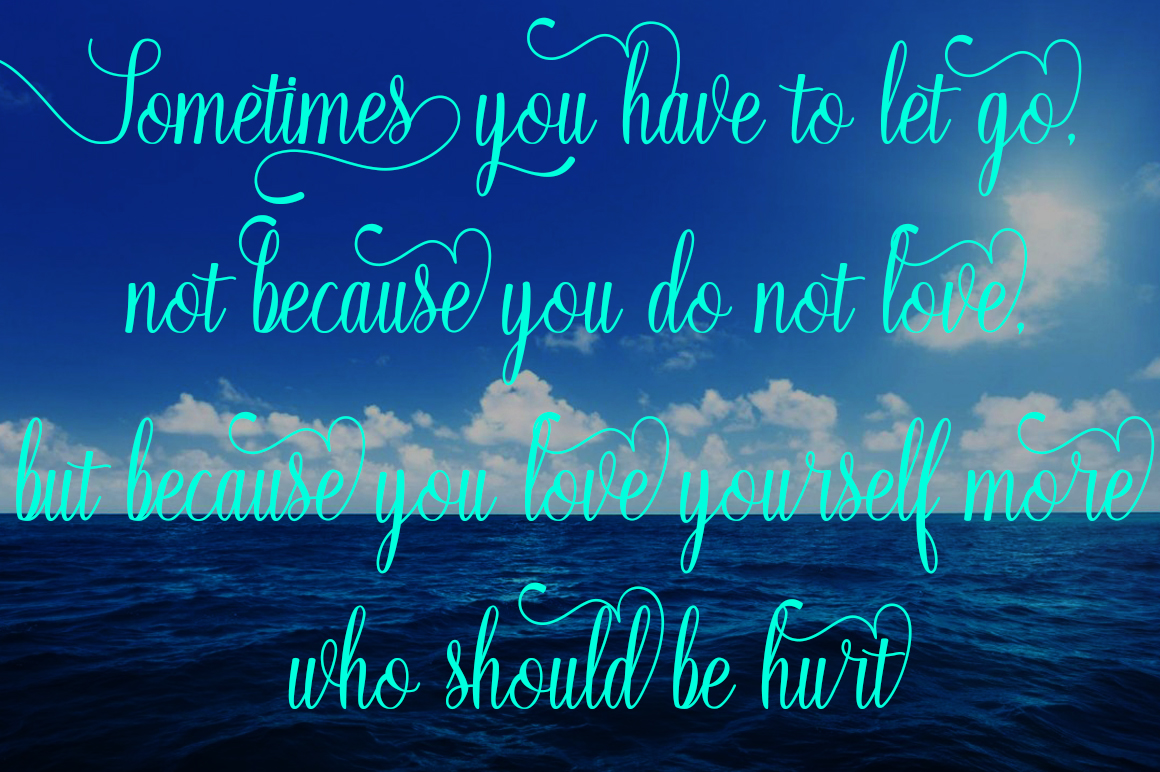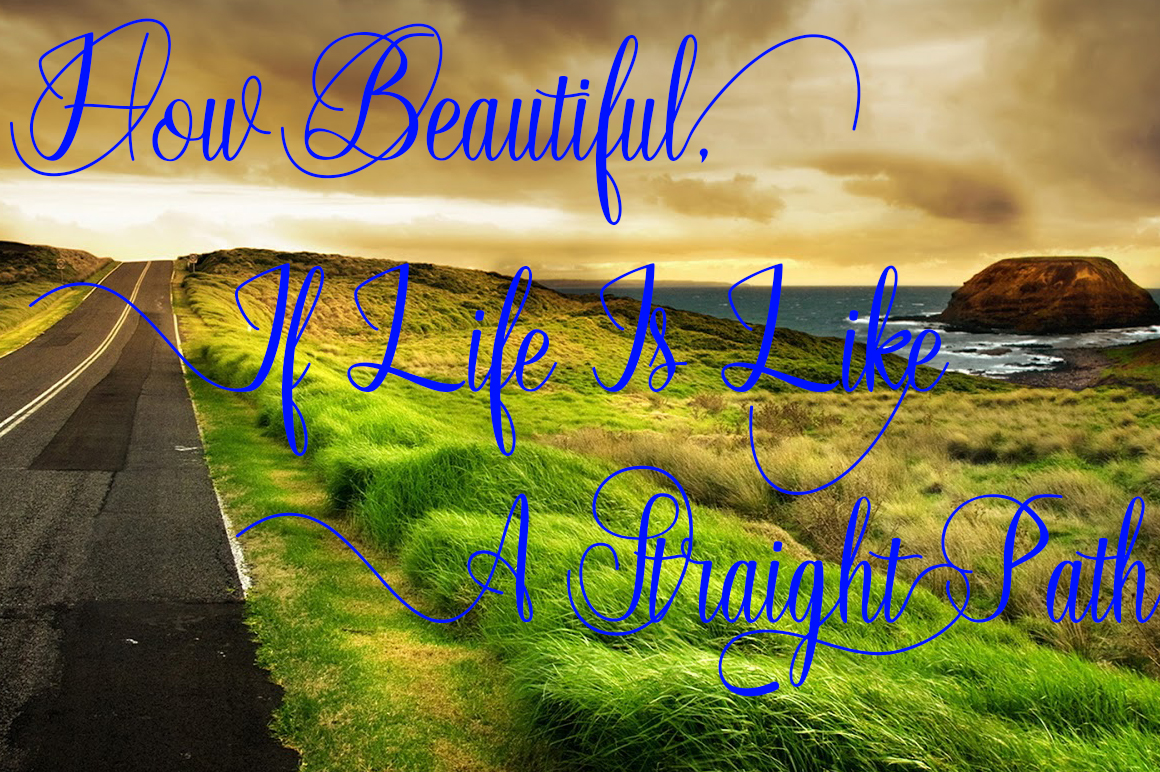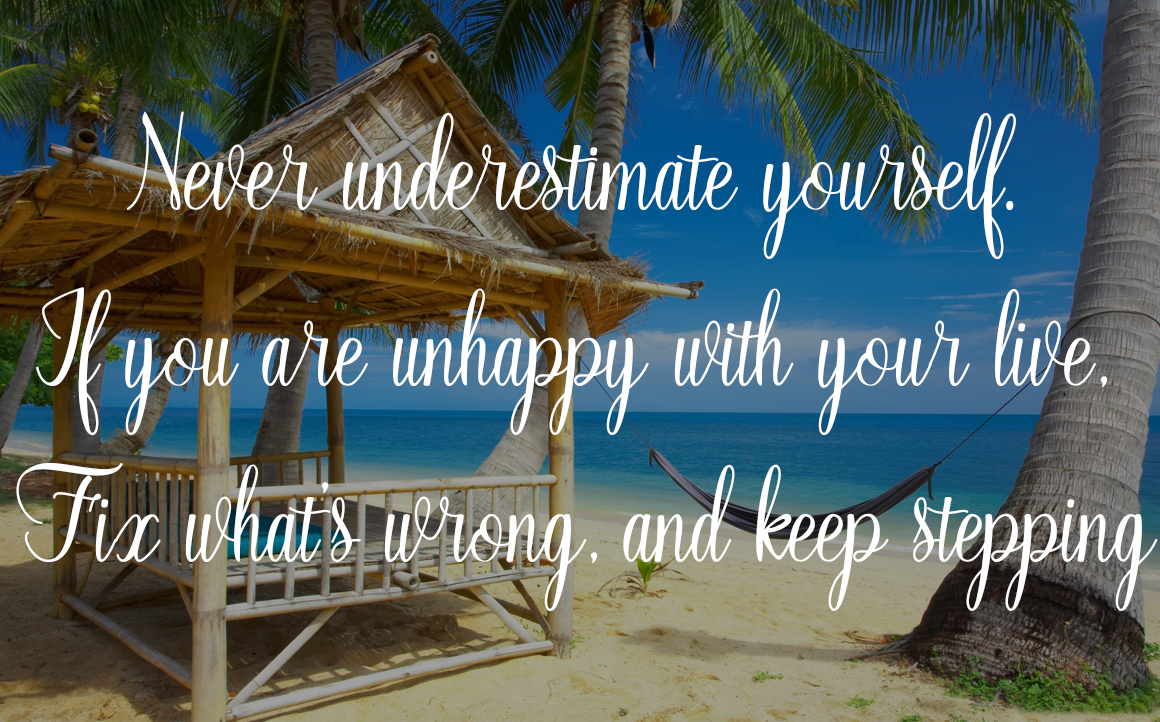
The Art of Elegant Typography: Unlocking the Potential of Fayalong Script Font
Have you ever been working on a design project, pouring your heart and soul into every detail, only to feel like something is missing – a touch of elegance, a dash of whimsy, a sprinkle of personality? This is where Fayalong Script Font comes in – a delicate and flourished script that adds a level of sophistication to any design.
Fayalong Script Font is perfect for those who crave a more natural, handcrafted look in their projects. With its unique forms and flourishes, it’s an ideal choice for designers who want to add an extra layer of elegance to their work. Whether you’re creating a wedding invitation, a logo, or a branding campaign, Fayalong Script Font is sure to make your projects stand out.
Fayalong Script Font Key Features
- Font Type: Script Font
- Unique Characteristics: Elegant, cursive design with swashes and flourishes, ideal for creative projects and branding
Fayalong Script Font Review
I’ve had the chance to work with Fayalong Script Font, and here’s my honest take on it.
- The font has a beautiful, elegant feel to it. It’s perfect for adding a touch of sophistication to your designs.
- The script style is well-executed, with a smooth, connected look that’s easy on the eyes.
- The font family is quite extensive, with multiple weights and styles to choose from.
- It’s a great choice for projects that require a high-end, luxury feel.
- The font may not be suitable for projects that require a more playful or casual tone.
- Some of the weights and styles can feel a bit too ornate, which may be overwhelming in certain contexts.
- The font may not be as readable at smaller sizes, so be mindful of this when using it in your designs.
Overall, Fayalong Script Font is a solid choice for designers who want to add a touch of elegance to their projects. While it may have some limitations, it’s a great option for those who need a high-end, sophisticated font. With a little bit of care and attention to usage, this font can really shine.
Fayalong Script Font is ideal for creating elegant and sophisticated designs, such as:
Branding and logos
Book covers and book titles
Special event invitations and announcements